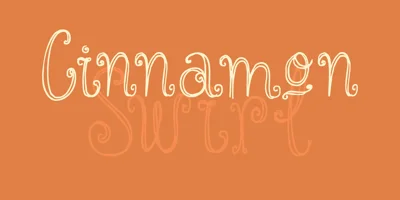
Cinnamon Swirl Font
The Cinnamon Swirl Font excels in various design applications including warm bakery branding, cozy cafe signage, spiced dessert packaging, autumn seasonal marketing, comfort food restaurant communications, artisanal pastry shop identities, warm spice company promotions, holiday baking materials, seasonal coffee shop signage, and delightful culinary projects that demand cinnamon warmth and swirl sophistication.
What makes the Cinnamon Swirl Font exciting is its delicious embodiment of warm spice comfort and swirling sweetness through letterforms that capture the essence of cinnamon's aromatic appeal and the satisfying spiral patterns of perfectly swirled pastries. This typeface demonstrates exceptional warmth through carefully crafted characters that suggest the gentle curves of cinnamon rolls, the comforting aroma of spiced baking, and the cozy satisfaction that makes cinnamon treats so irresistibly appealing and emotionally comforting. The font's swirl personality makes it perfect for bakeries and comfort food brands seeking to communicate warm hospitality, spiced sweetness, and the kind of cozy comfort that creates memorable culinary experiences through typography that literally swirls with cinnamon-scented charm.
The Cinnamon Swirl Font family typically includes warm weight variations that enhance the spiced aesthetic, featuring flowing swirl styling and extended character sets optimized for culinary communications and seasonal applications. These family options often include pastry-inspired alternates, spice symbols, and swirling decorative elements that provide designers with comprehensive tools for creating authentically warm typography that celebrates comfort food culture while maintaining contemporary design appeal and culinary credibility.
Culinary professionals and comfort food brands consistently select Cinnamon Swirl Font for projects requiring typography that communicates warm authenticity and spiced sophistication. This typeface delivers exceptional performance in bakery marketing, comfort food branding, and seasonal communications where establishing warmth and creating cozy atmosphere is essential for customer comfort. The font's cinnamon character makes it particularly effective for dessert and coffee applications. Download Cinnamon Swirl Font today to access this deliciously warm typeface that transforms culinary communications with its spiced elegance and swirl sophistication, creating compelling comfort experiences that celebrate the magnificent warmth of cinnamon treats while maintaining the cozy appeal that makes spiced comfort food so irresistibly satisfying and genuinely heartwarming.